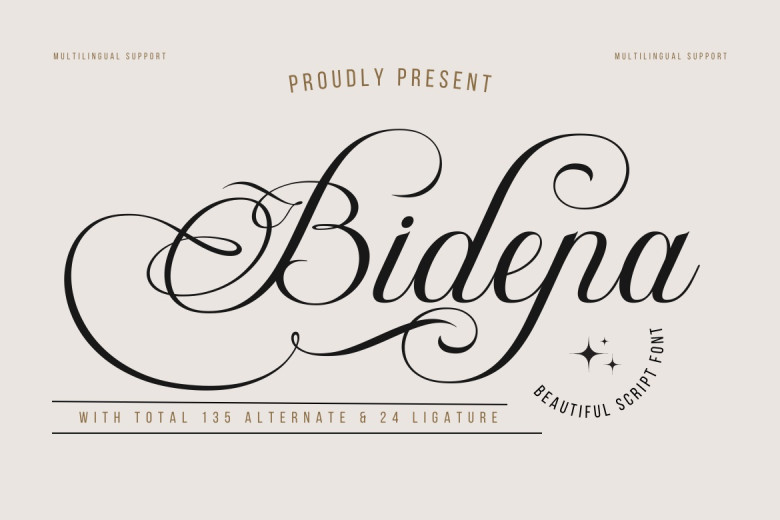
Bidena Font
Introducing Bidena The right script calligraphy font for material designers who want to bring a touch of beauty and sophistication to their designs; Bidena flows excellently and distinctive elegance in every letter. Bidena is perfect for certain projects you would like to see sophistication and elegance.
This font has stylistic set alternates and ligatures to give your work a more elegant and distinct feel. It also contains flowing lines and adorning up with straight touches which makes it perfect for any project. Perfect for creating beautiful messages for any design projects such as wedding invitations, thank you cards, branding, and many others, Bidena. This font will leave an enduring impression on your audience.
Bidena Calligraphy Script Font